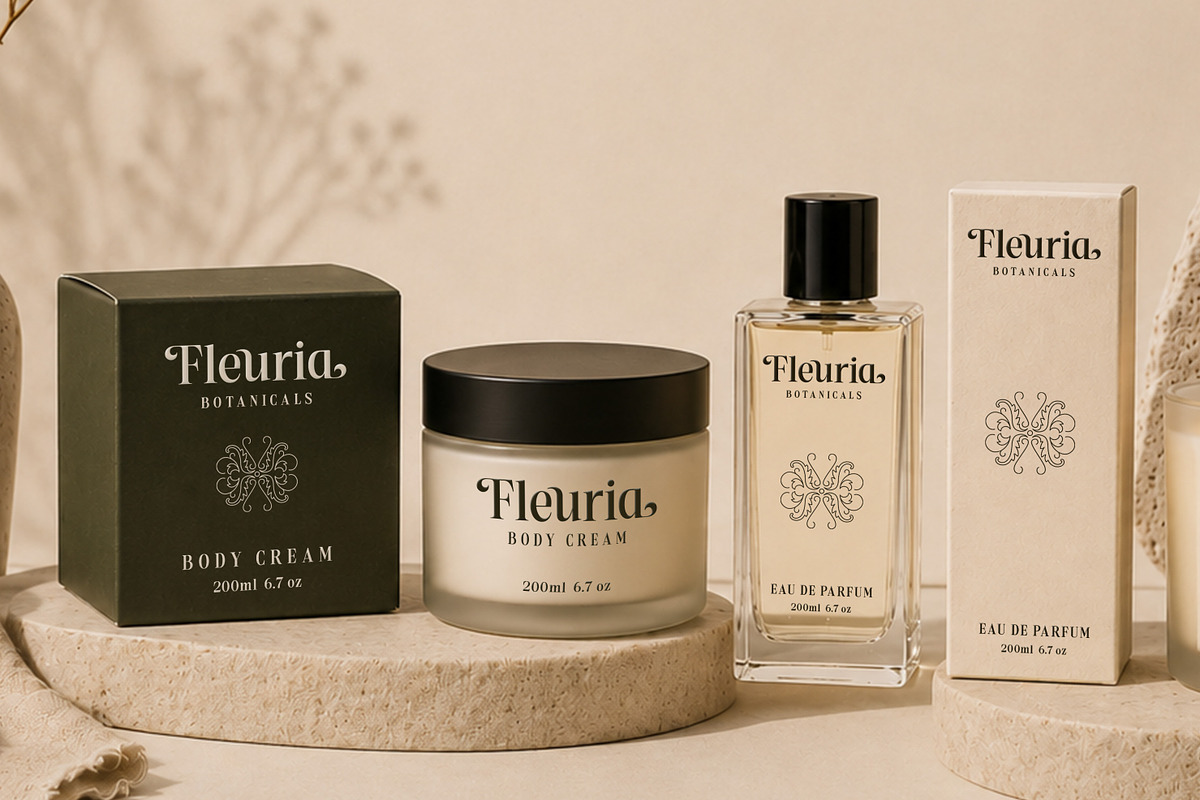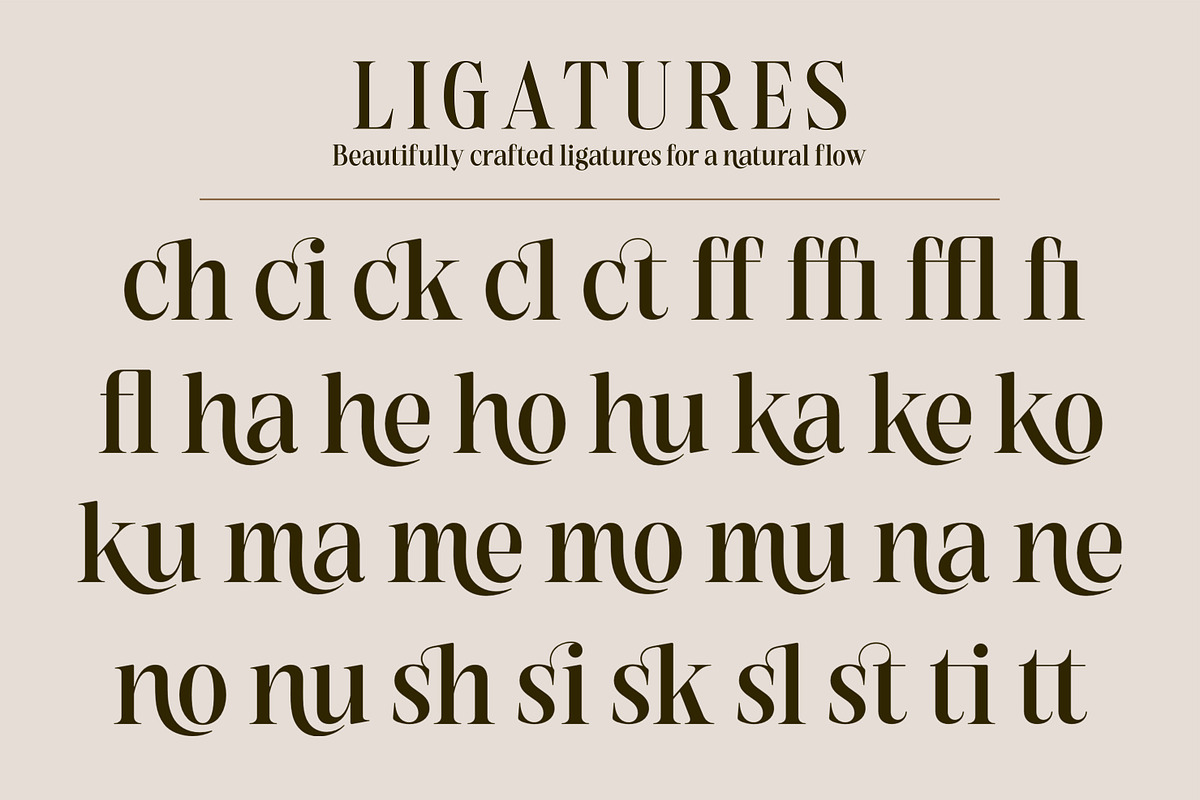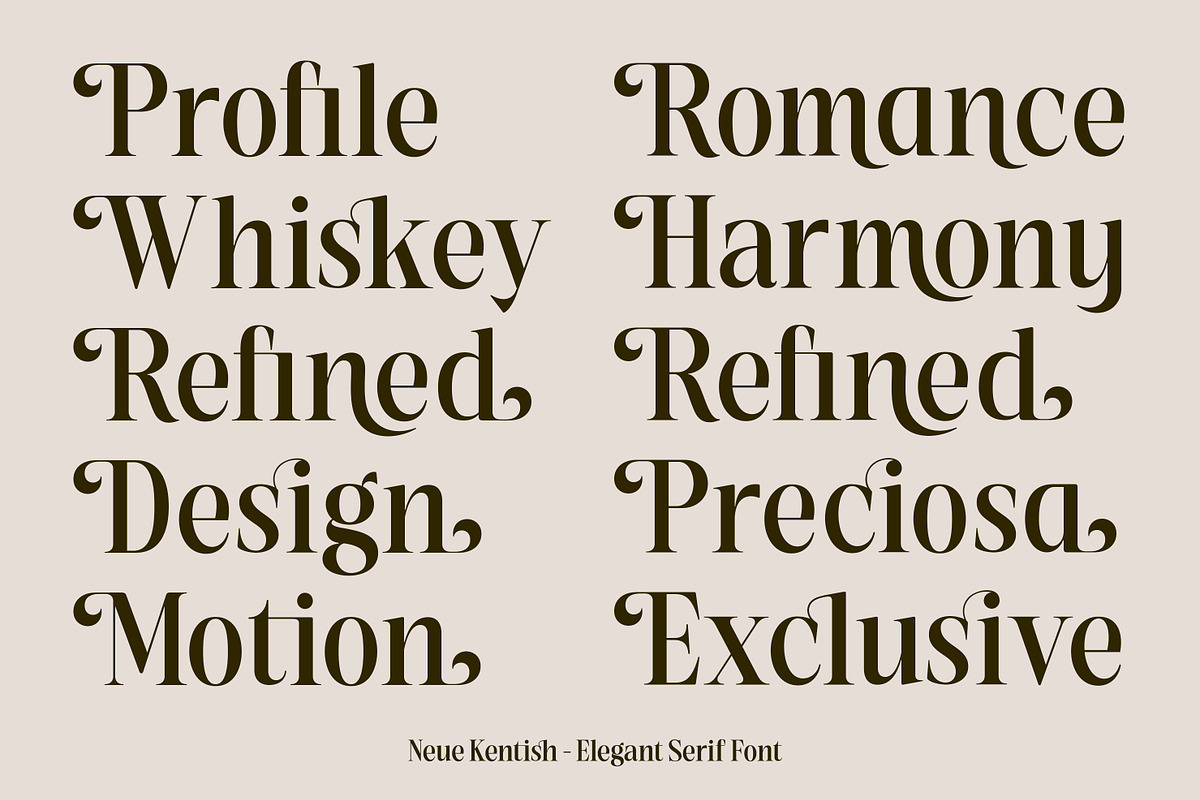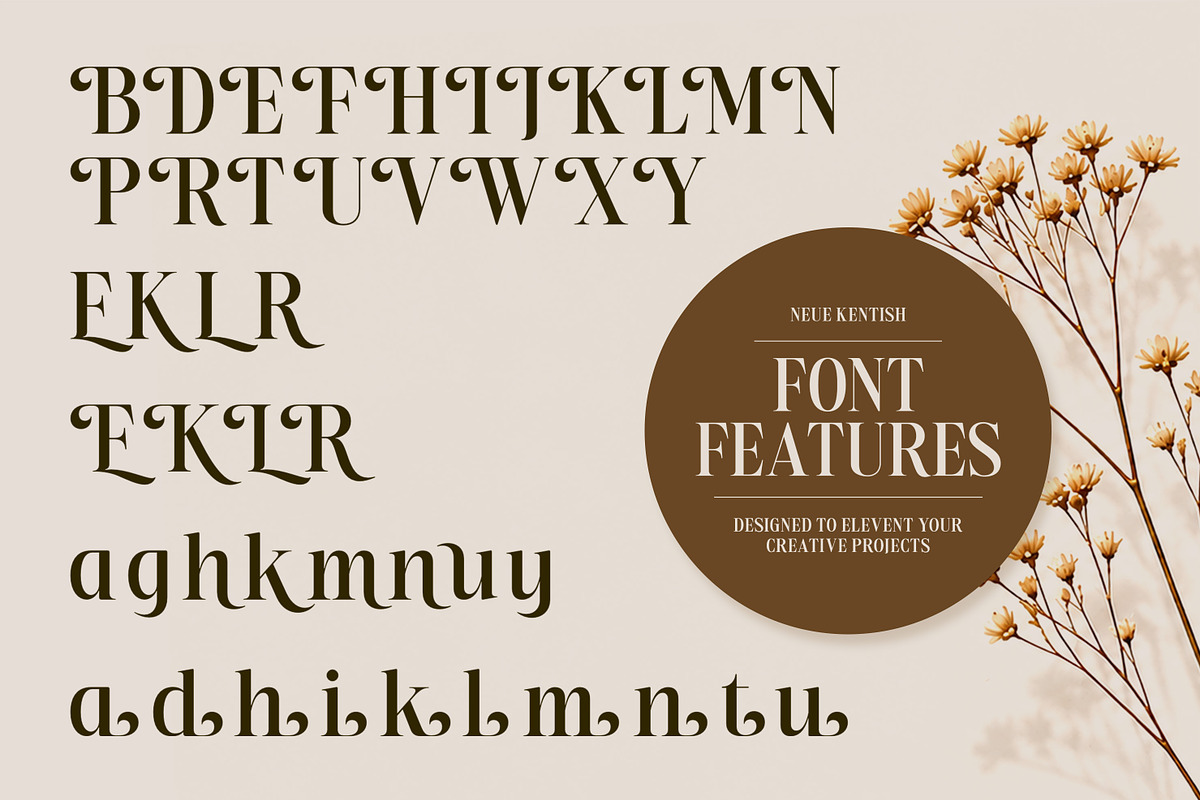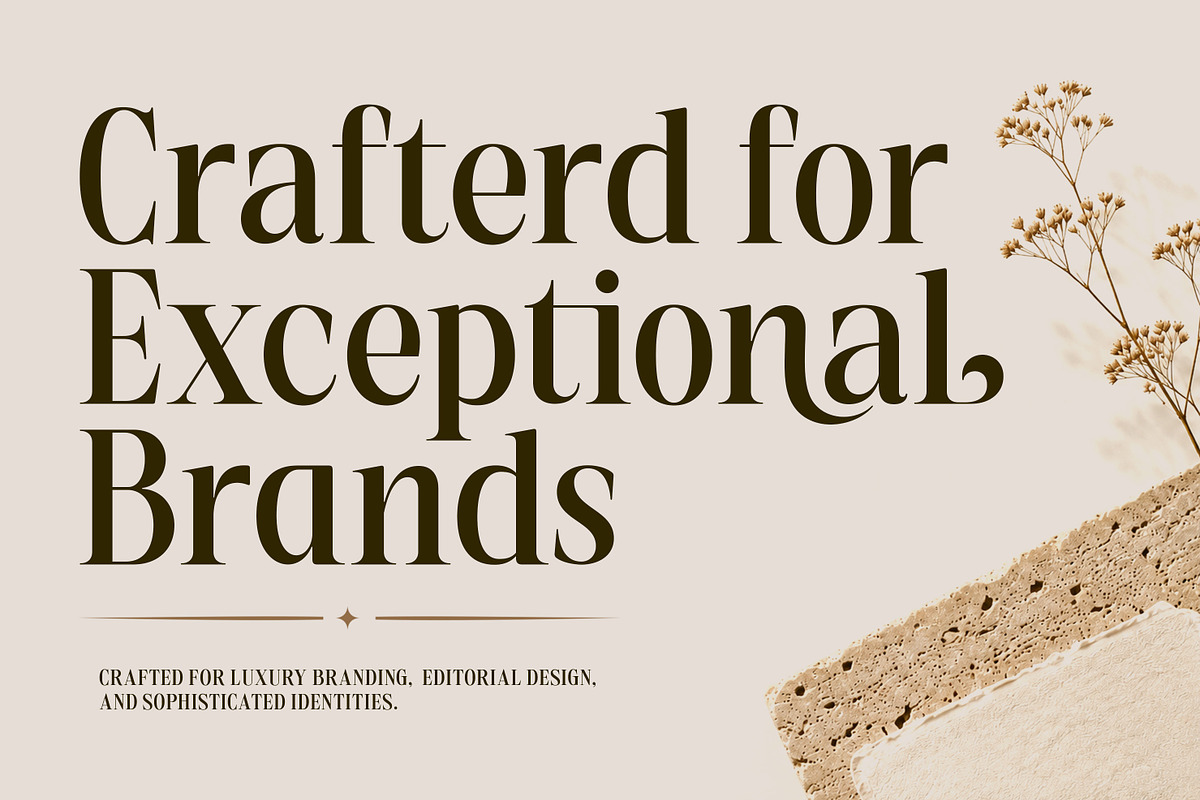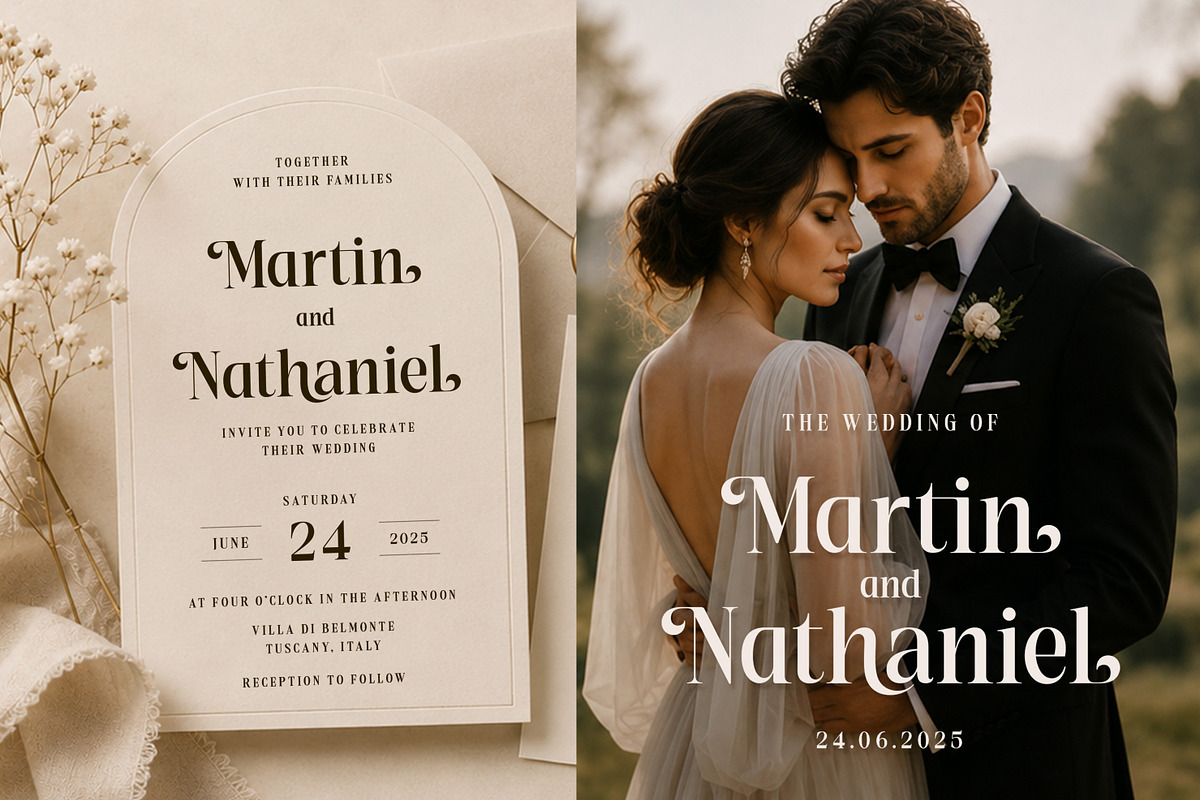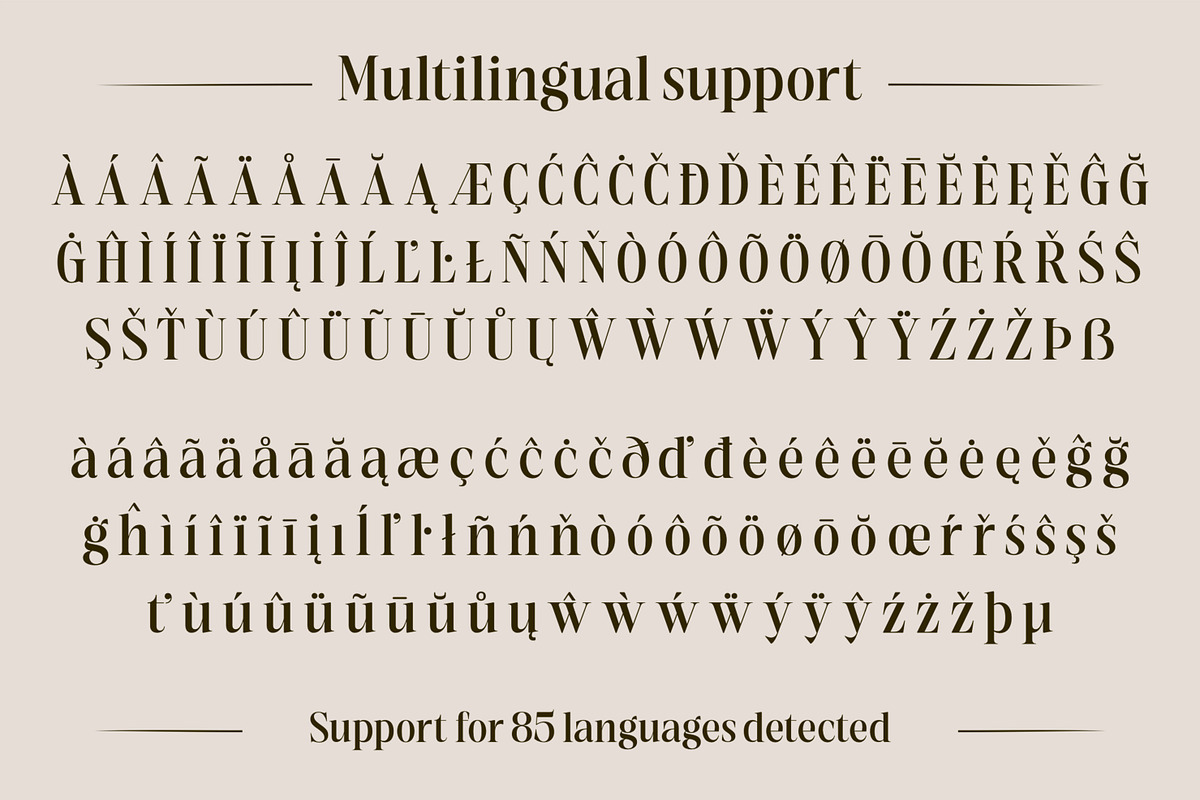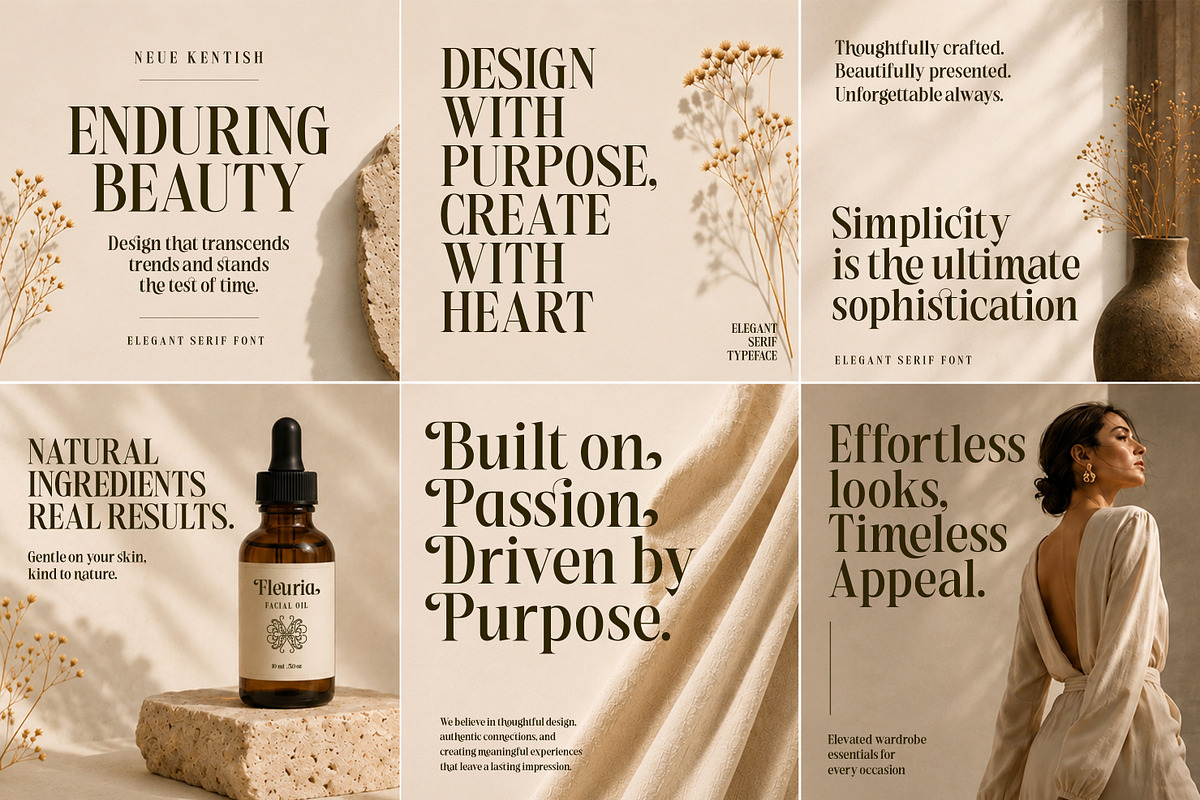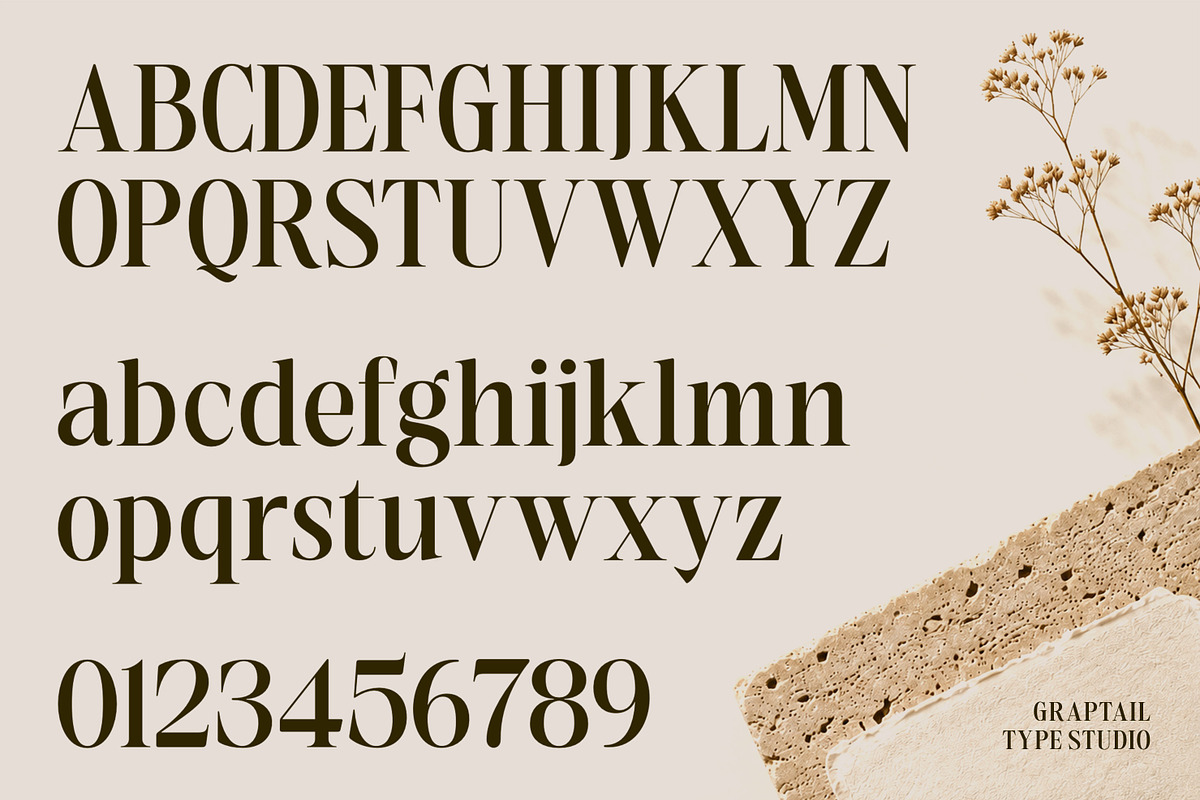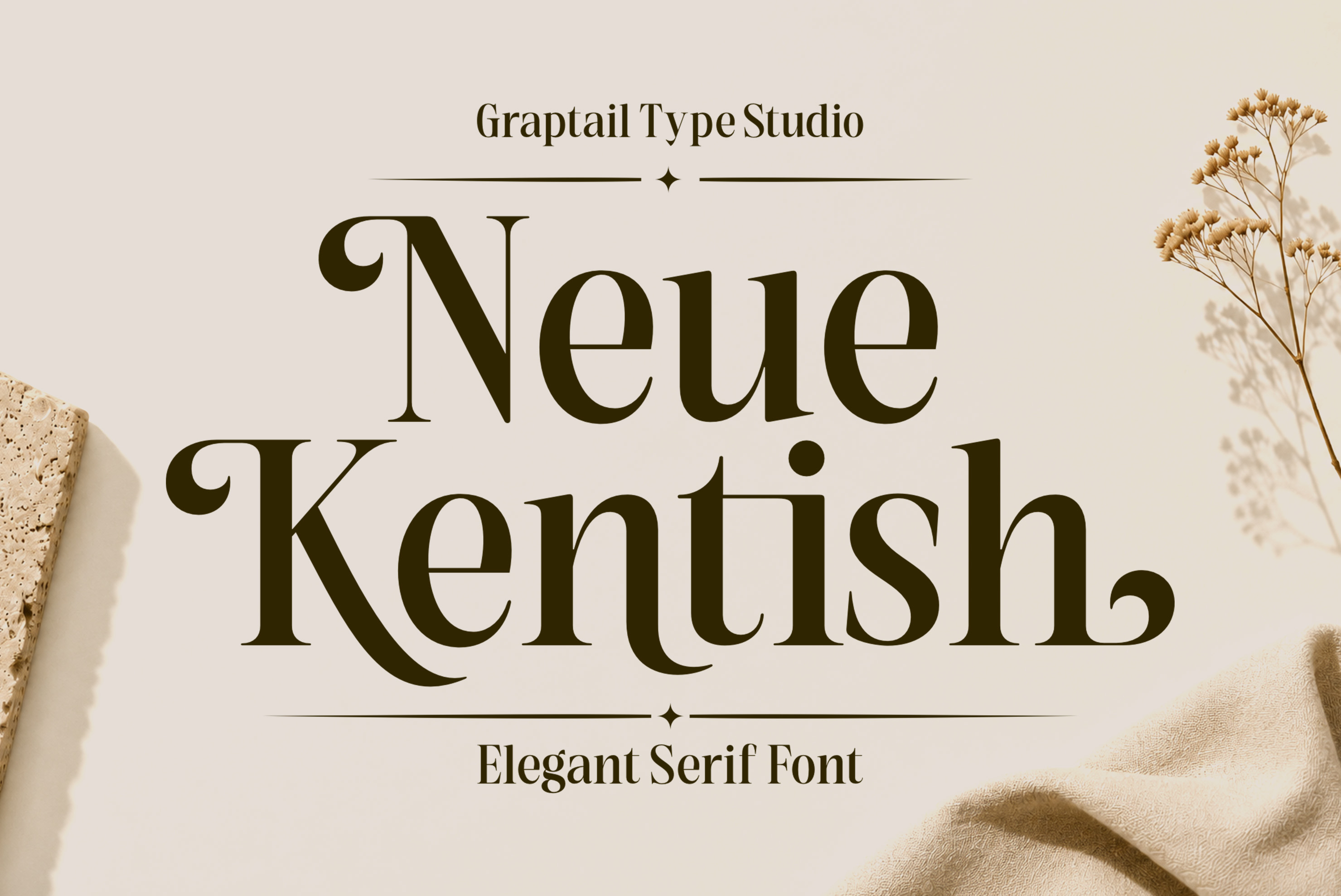
Neue Kentish | Elegant Serif Font
Introducing Neue Kentish, a sophisticated serif typeface crafted to bring timeless elegance and refined character to your creative projects. Designed with graceful curves, stylish ligatures, and carefully crafted alternates, Neue Kentish blends classic beauty with a modern editorial aesthetic.
Whether you're designing luxury branding, fashion campaigns, wedding stationery, magazine layouts, cosmetic packaging, or premium logos, Neue Kentish delivers a distinctive presence that feels both elegant and memorable.
Its high-contrast letterforms, beautiful proportions, and rich OpenType features make it a versatile choice for designers seeking a luxurious and professional typographic voice.